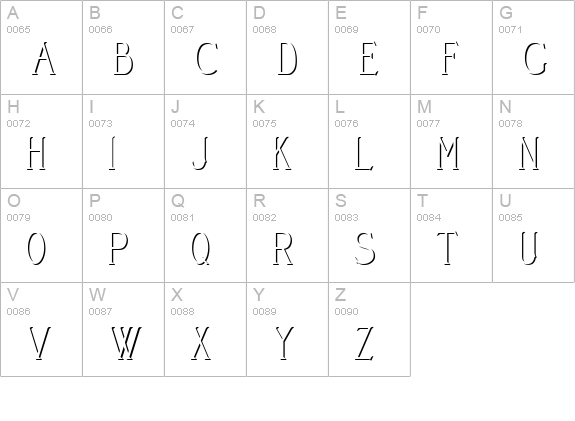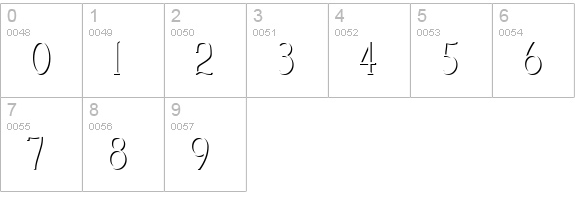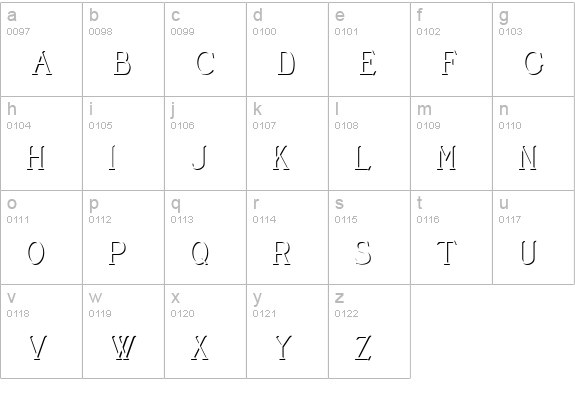
Cleaver's_Juvenia_Embossed Font Details
Cleaver's Juvenia Embossed font is a striking and elegant typeface that exudes a sense of sophistication and timeless beauty. Its intricate details and embossed effect make it perfect for adding a touch of luxury to your designs. This unique font is versatile and can be used for a wide range of projects, from branding to invitations to editorial design. And the best part? Cleaver's Juvenia Embossed font is available for free download at FontsMarket.com. With its luxurious aesthetic and high-quality design, this font is sure to elevate your projects and leave a lasting impression. Whether you're a designer looking to add a touch of elegance to your work or a business owner in need of a standout typeface, Cleaver's Juvenia Embossed font is the perfect choice. Download it today and take your designs to the next level!